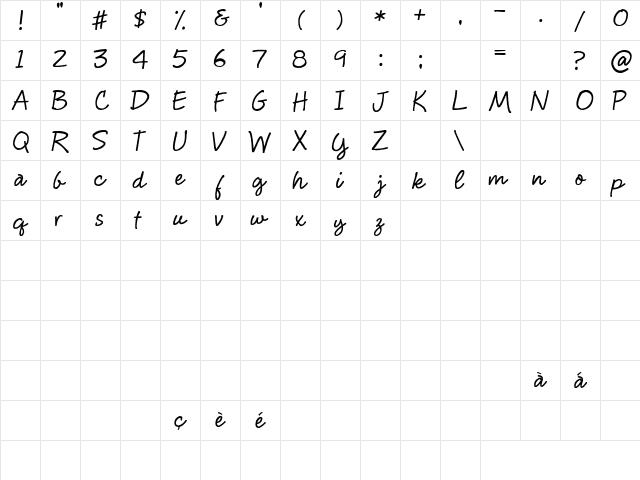
2Peas Fancy Free Regular Font Preview
2Peas Fancy Free Regular
Design Context for 2Peas Fancy Free Typeface
2Peas Fancy Free is a composed and adaptable typeface that performs quietly and consistently across a wide range of design contexts.